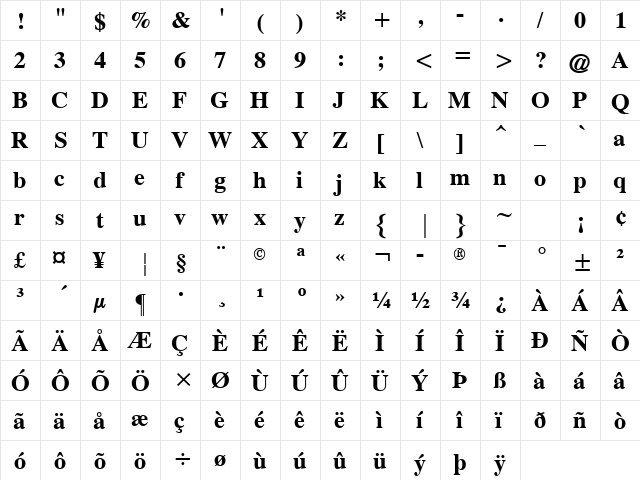
Times CG ATT Bold
Design Context for Times CG ATT Typeface
Times CG ATT is a composed and adaptable typeface that performs quietly and consistently across a wide range of design contexts. Its bold stroke weight gives it real presence on the page.